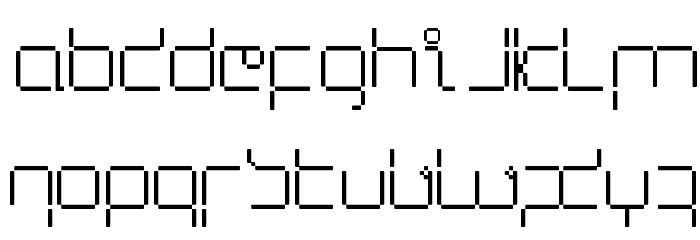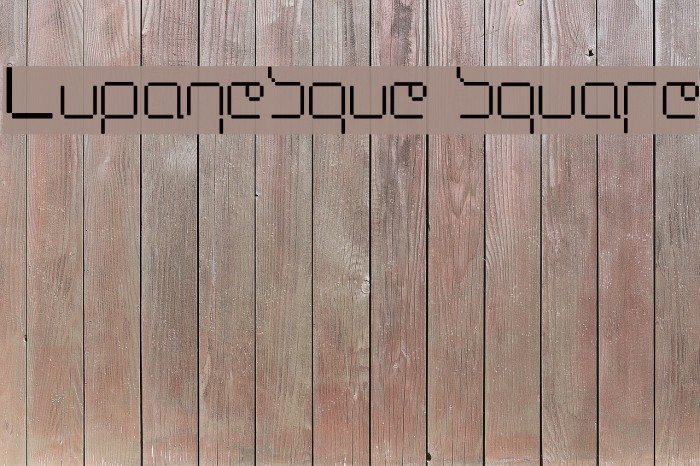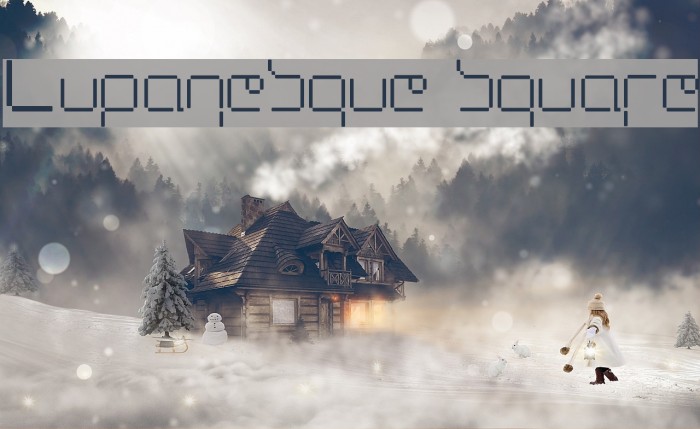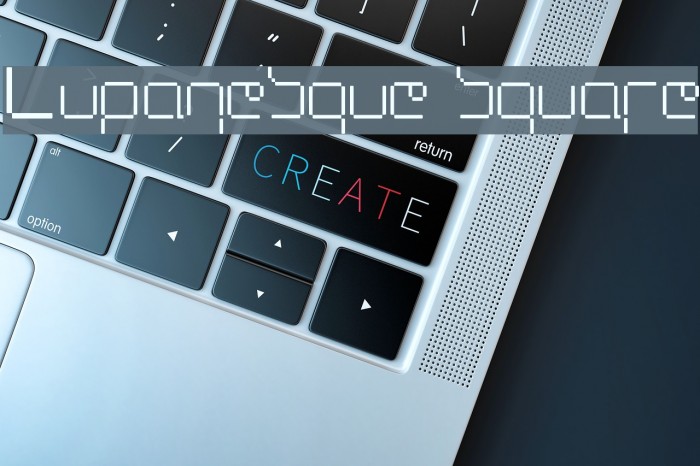
Lupanesque square Font
This font features a unique, geometric design with a square-like structure that gives it a modern and digital appearance. The characters are constructed with a consistent stroke width, creating a uniform and cohesive look. The design is minimalistic, with each letter and number formed by a series of straight lines and right angles, giving it a pixelated, almost retro feel. The font includes both uppercase and lowercase letters, numerals, and a variety of special characters. Its clean and structured form makes it suitable for digital displays and tech-related projects.
A geometric, digital-style font with a square, pixelated appearance.
- Proposed Projects: Ideal for digital displays, tech branding, video game graphics, and modern web design.
- Use Case: Headlines, Logos, Digital displays